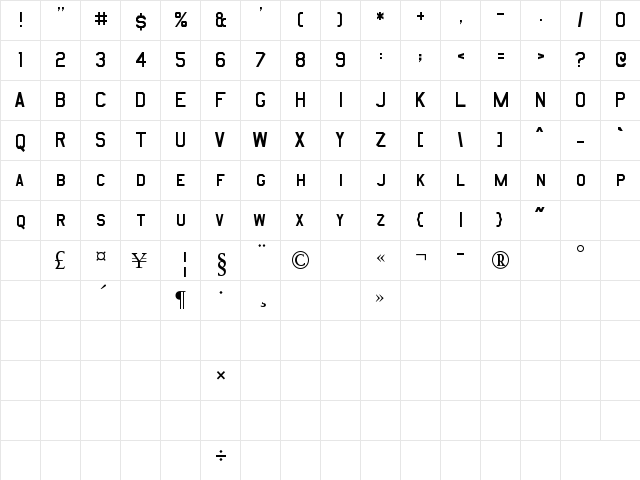
Jefferies Regular
Design Context for Jefferies Typeface
Jefferies is a composed and adaptable typeface that performs quietly and consistently across a wide range of design contexts.
Pro Tip: Pair Jefferies with a font of contrasting weight or personality to build a more expressive typographic hierarchy.